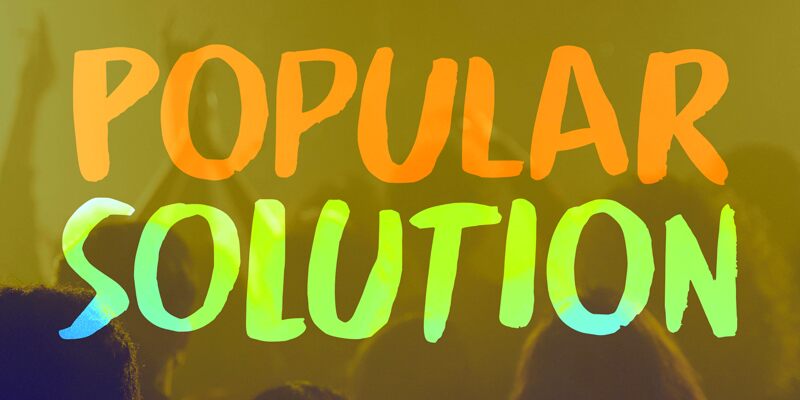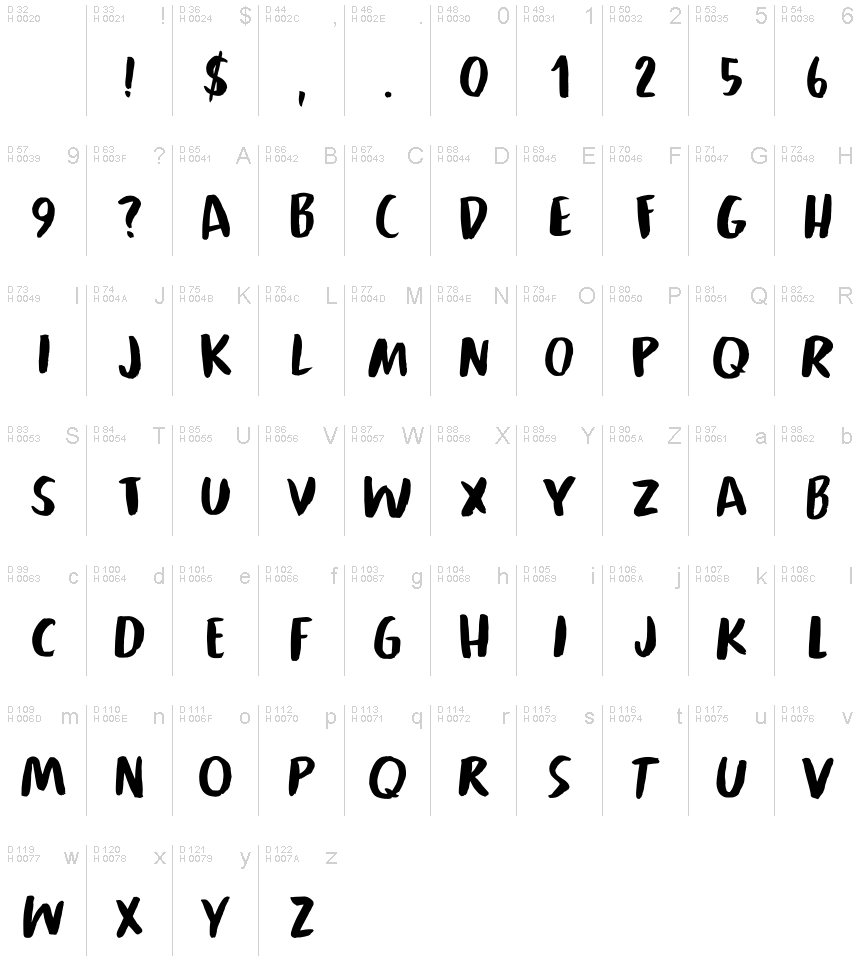
Popular Solution DEMO Regular
Popular Solution, designed by David Kerkhoff of Kitchen Table Type Foundry, captures a spirited energy through its bold brush strokes. The dynamic contouring exudes vibrancy and a handcrafted feel, making it an ideal choice for projects that require a personal touch. Its exaggerated forms lend an inviting warmth, while the sweeping letters evoke movement and creativity.
This font shines in contexts such as event invitations, branding for artisanal goods, or playful advertising campaigns where personality is essential. With its striking presence and artistic flair, Popular Solution effortlessly elevates designs across various mediums, creating memorable visual statements that resonate with audiences.